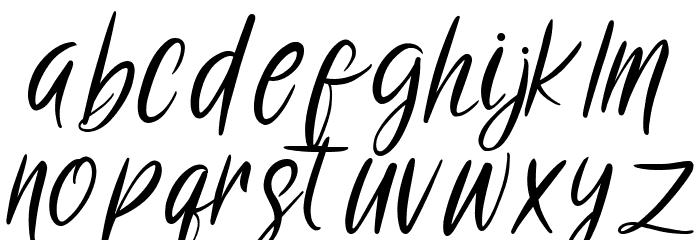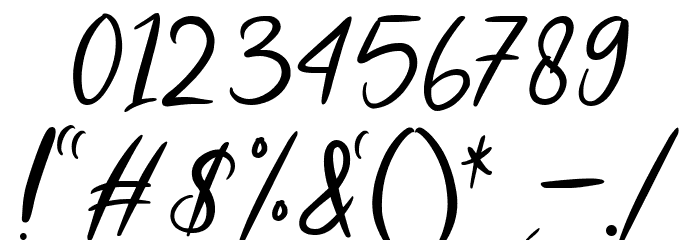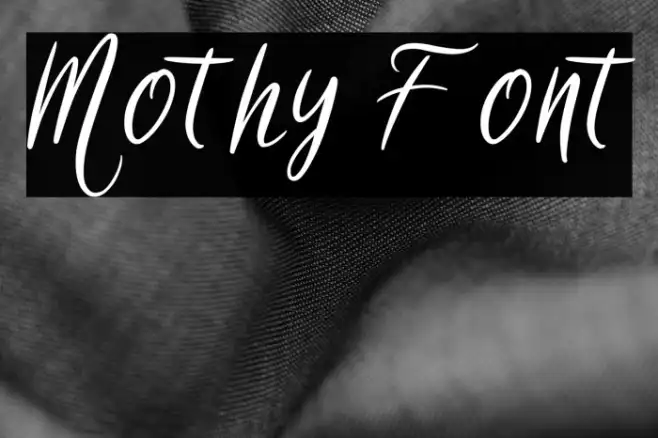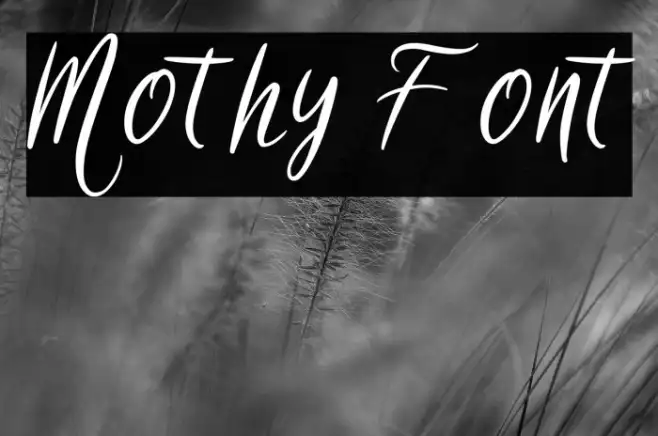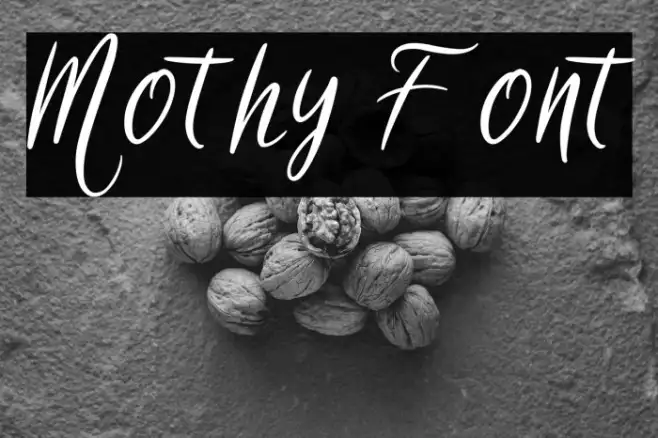
Mothy Font
This font features a dynamic and expressive script style, characterized by fluid, sweeping strokes that convey a sense of movement and elegance. The uppercase letters are bold and slightly slanted, giving them a modern flair, while the lowercase letters maintain a consistent flow with a touch of whimsy. The numerals are clear and easy to read, complementing the overall aesthetic. Special characters are thoughtfully designed to match the font's artistic style, making it versatile for various creative applications. The font's playful yet sophisticated appearance makes it suitable for projects that require a personal touch.
A dynamic and expressive script font with fluid, sweeping strokes.
- Proposed Projects: Ideal for wedding invitations, greeting cards, branding, and logo design.